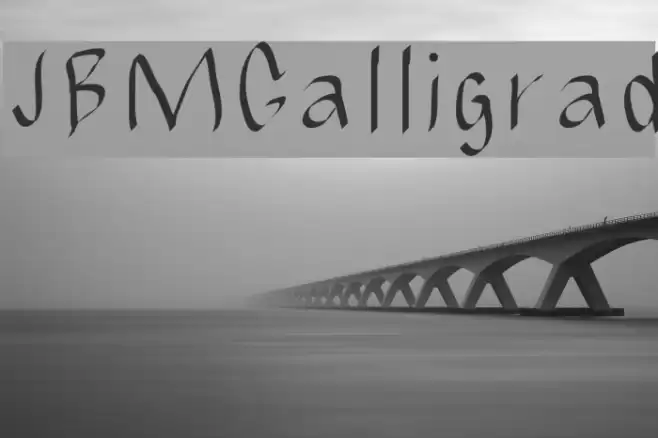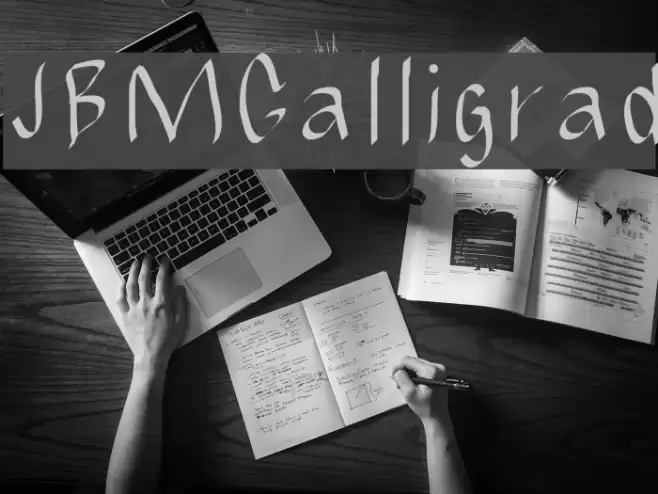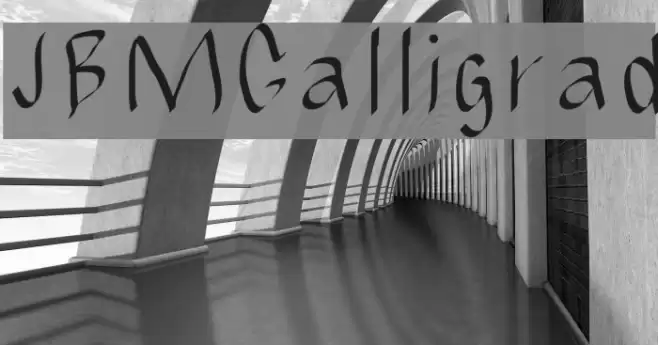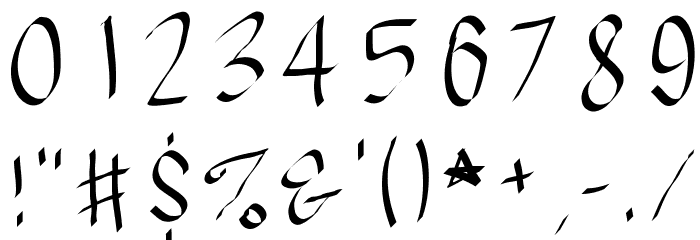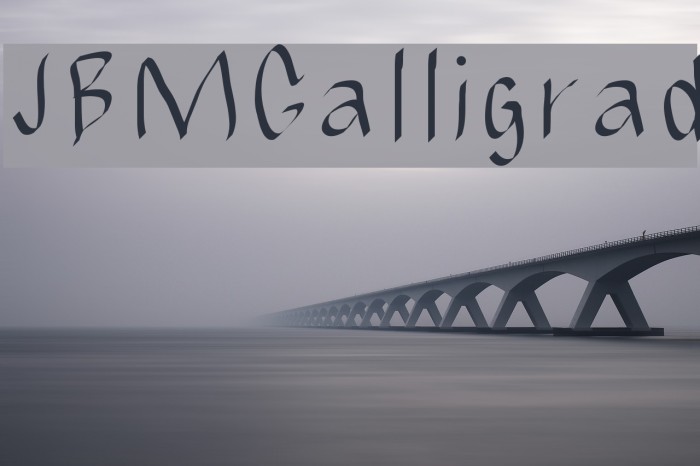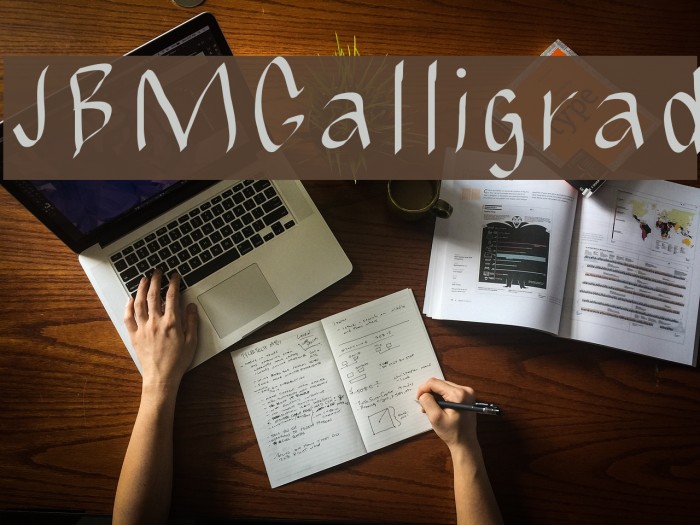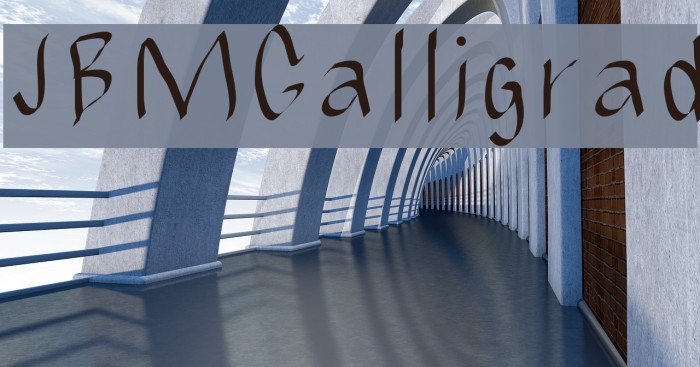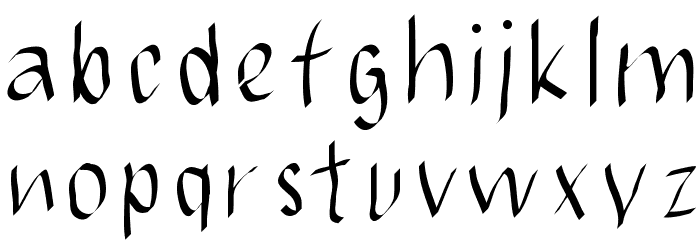
JBMCalligrad Font
JBMCalligrad Description
This font features a dynamic and expressive style, reminiscent of traditional calligraphy with a modern twist. The characters exhibit a fluid motion, with varying stroke widths that add a sense of elegance and artistic flair. The uppercase letters are bold and commanding, while the lowercase letters maintain a graceful flow. Numbers and special characters are crafted with the same attention to detail, ensuring a cohesive look throughout. The overall design is both sophisticated and approachable, making it suitable for a variety of creative applications.
A dynamic, calligraphic font with expressive strokes and elegant flow from Uncategorized fonts.
- Proposed Projects: Ideal for wedding invitations, greeting cards, branding projects, and artistic posters.
- Use Case: Logos, Invitations, Artistic projects